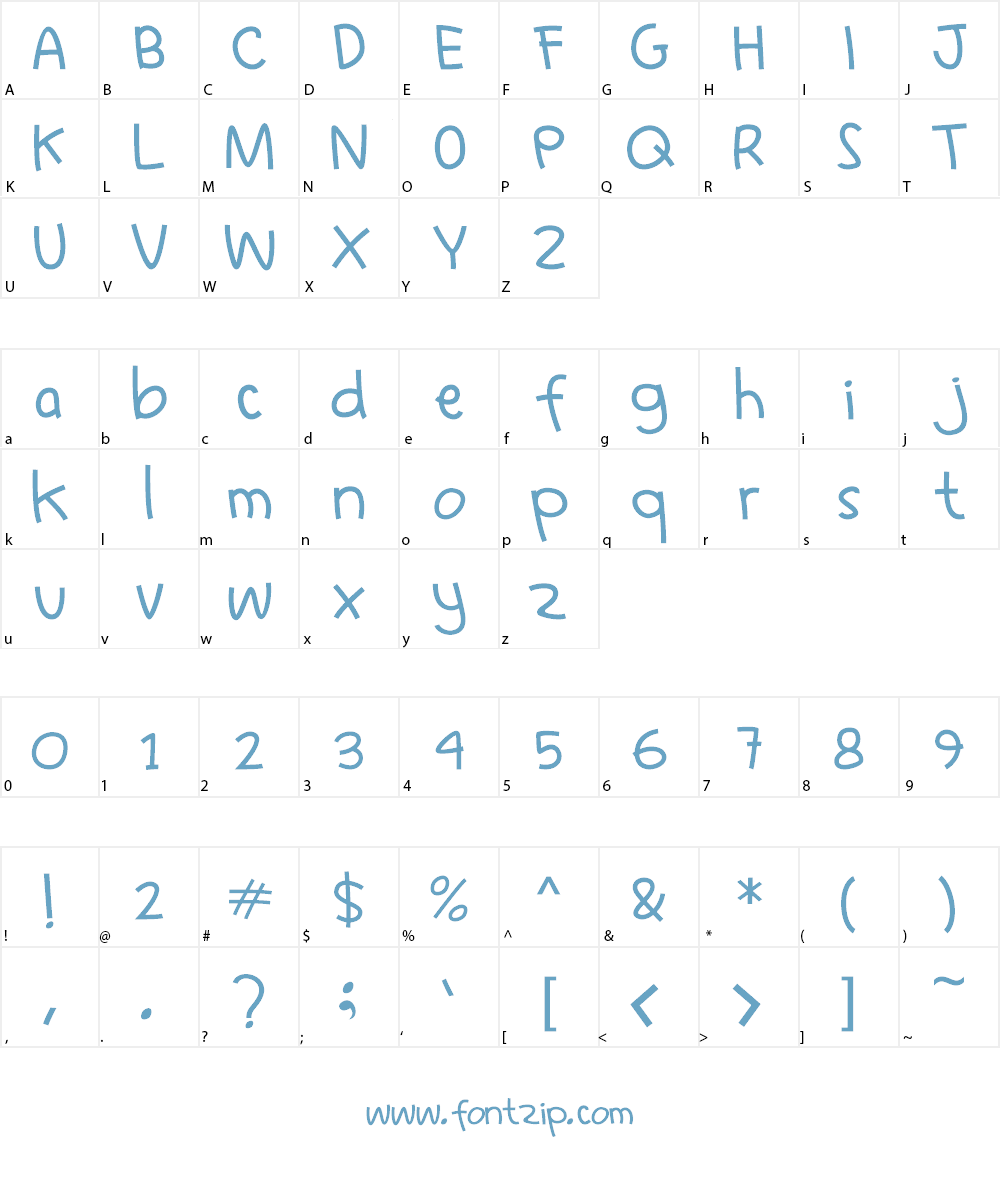
Simple handwritten font, suitable for various needs, quotes, displays, posters, comics, t-shirts and so on
Inspired by the writing of a girl, which is simple but still cute : )